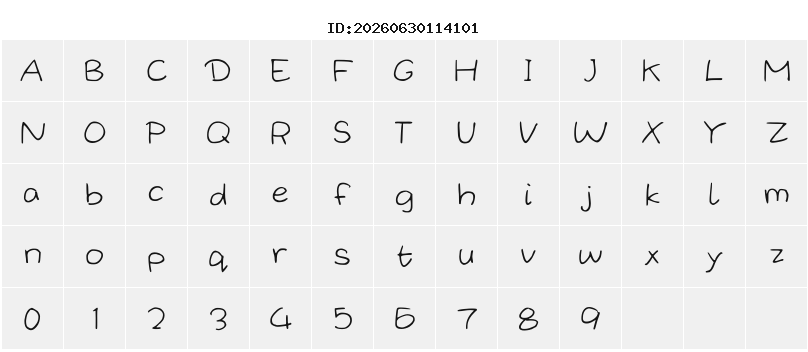
Aa奇妙之旅 Preview
• Font Name: Aa奇妙之旅
• Font Style: 常规
• Font ID: 1.000;Aa;AaQimiaozhil;2016
• Full Font Name: Aa奇妙之旅
• PostScript Name: AaQimiaozhil
• Character Count: 8410
• Designer: Aa
• Manufacturer: 翰美互通(厦门)科技有限公司
• Description: AaQimiaozhil is a fantastic font with excellent features designed for user interfaces and electronic communications.
About Aa奇妙之旅.ttf
Aa奇妙之旅.ttf is a modern, elegant sans-serif font designed for ultimate readability and visual harmony. Perfect for branding, headlines, web design, and print materials.